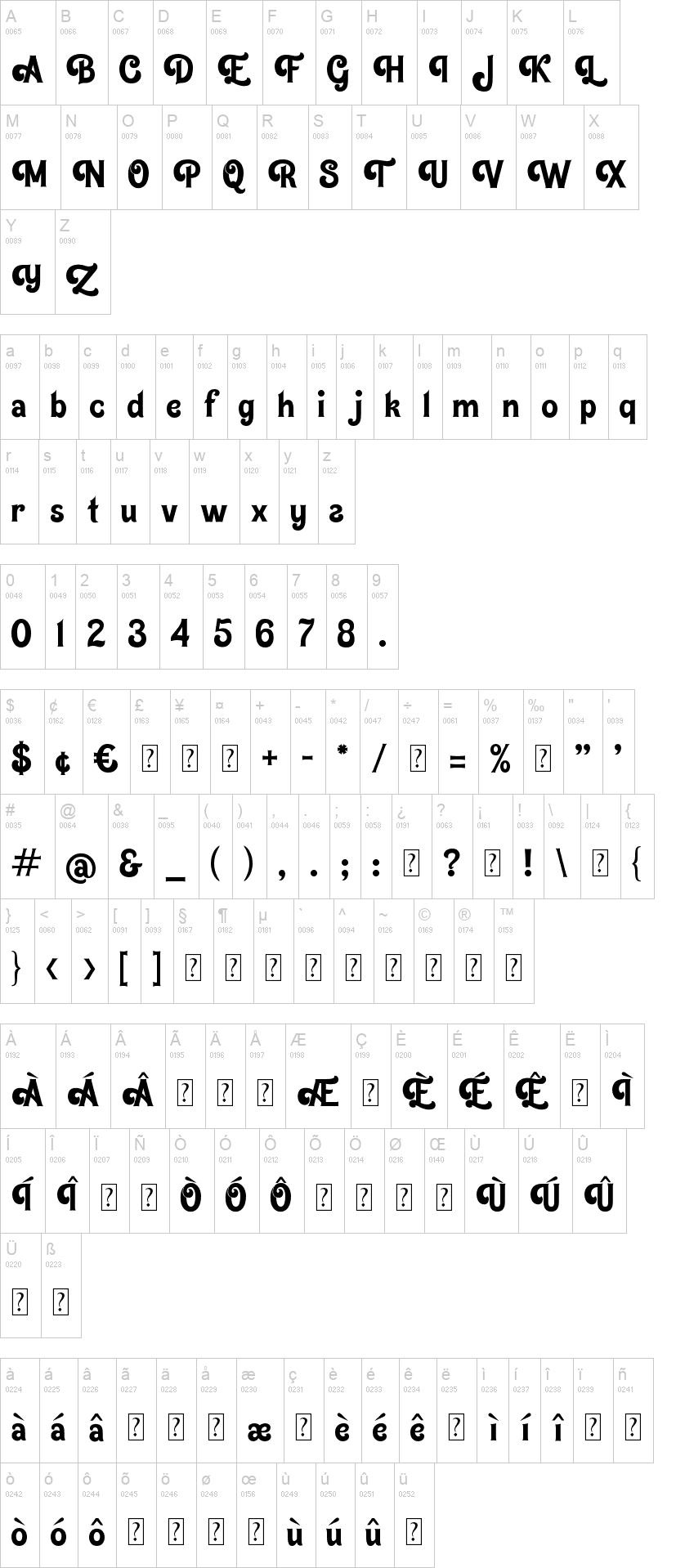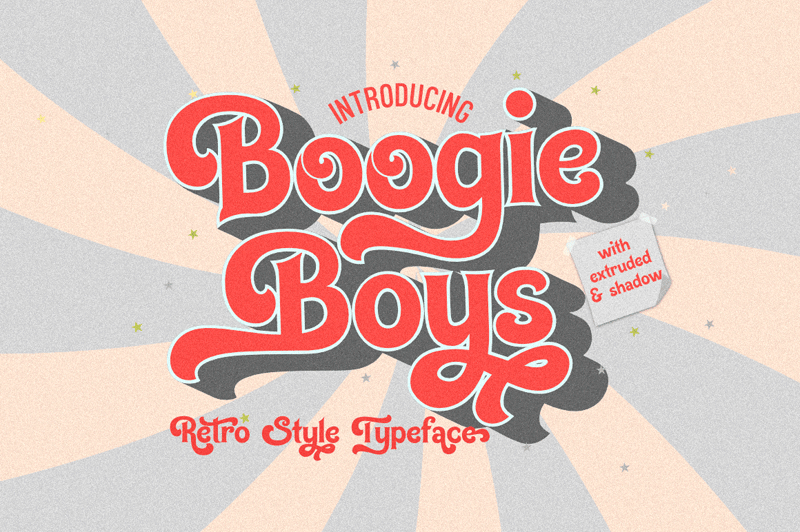
BoogieBoysExtrude.ttfBoogieBoysShadow.ttfNote of the authorBoogie Boys has three layers to use as 3D effect, but it also stunning if you only use the regular one.